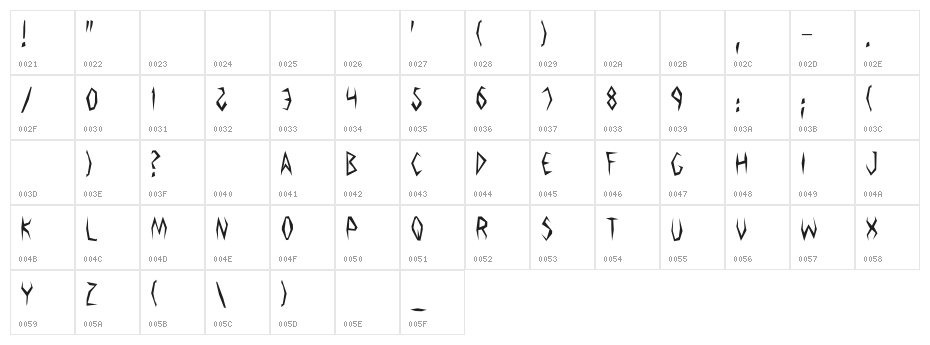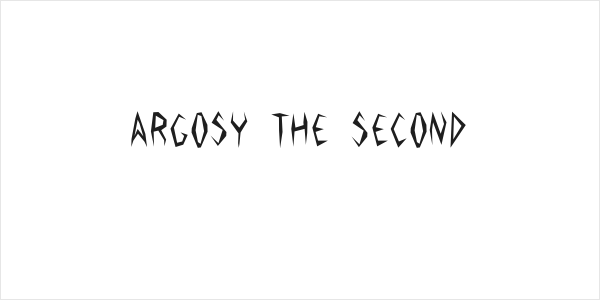
Argosy the Second Font
Argosy the Second Description
This font features a sharp, angular design with a distinct, edgy appearance. The characters are crafted with pointed edges and irregular strokes, giving it a dynamic and aggressive feel. The uppercase letters are bold and commanding, while the lowercase letters maintain the same sharpness, creating a cohesive look. Numbers and special characters follow the same stylistic approach, ensuring consistency across all glyphs. This font's unique style makes it stand out, perfect for projects that require a bold and unconventional typeface.
| Overall Style | Modern, Edgy |
| Proposed Projects | Ideal for album covers, posters, video game titles, and branding that requires a bold, unconventional look. |